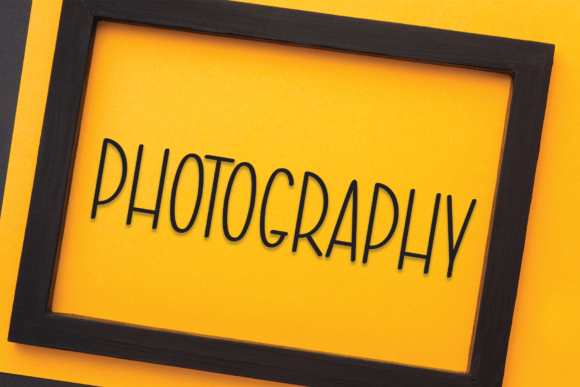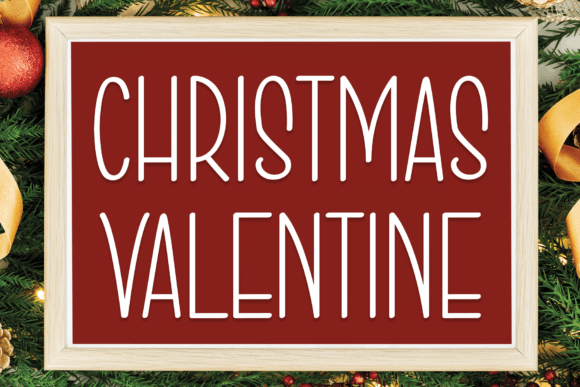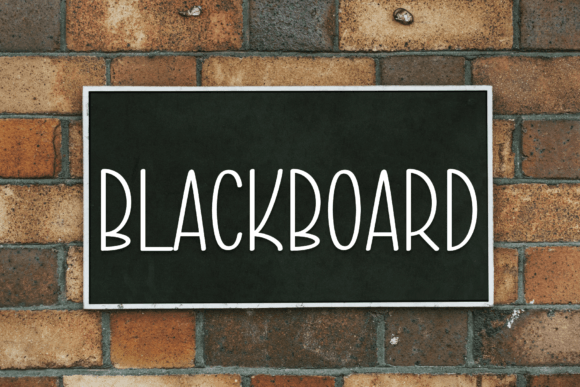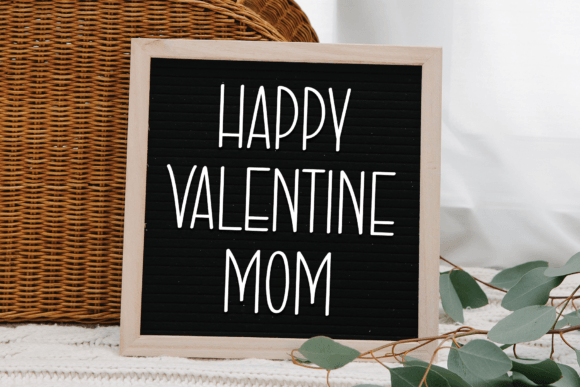
Introducing Game Snow Font: The Fun and Friendly Handwritten Font for All Occasions
Are you tired of using the same old fonts for your crafts, digital designs, presentations, and greeting cards? Look no further! Game Snow Font is here to bring a touch of fun and friendliness to your projects. This versatile handwritten font is perfect for designers, crafters, and anyone looking to add a personal touch to their creations.
The Perfect Font for Crafters and Designers
Game Snow Font is a unique and charming font that can be used for a wide range of projects. Whether you’re creating handmade cards, scrapbooking pages, or digital designs, this font is sure to become your go-to choice. Its playful and approachable feel makes it ideal for:
- Crafts: Add a personal touch to your handmade crafts, such as knitting patterns, sewing projects, or paper crafts.
- Digital design: Use Game Snow Font in your digital designs, such as social media graphics, blog posts, or website headers.
- Presentations: Make your presentations more engaging and fun with this friendly font.
- Greeting cards: Create personalized and heartfelt greeting cards for any occasion.
What Makes Game Snow Font So Special?
Game Snow Font has several features that make it stand out from other fonts:
- Handwritten feel: The font has a genuine handwritten feel that adds a touch of warmth and personality to your projects.
- Versatility: Game Snow Font can be used for a wide range of projects, from formal to informal, and from digital to print.
- Ease of use: The font is easy to read and works well in various sizes, making it perfect for both headlines and body text.
- Unique character set: The font includes a range of characters, numbers, and punctuation marks, ensuring that you have everything you need to create beautiful text.
Tips for Using Game Snow Font
To get the most out of Game Snow Font, here are some tips to keep in mind:
- Pair it with other fonts: Combine Game Snow Font with other fonts to create a unique and interesting contrast.
- Experiment with colors: Try out different colors and textures to add depth and visual interest to your projects.
- Use it for emphasis: Use Game Snow Font to draw attention to important information or to add emphasis to your text.
- Keep it simple: Don’t be afraid to use Game Snow Font on its own – its simplicity can be its greatest strength.
Game Snow Font is a fun and friendly handwritten font that’s perfect for designers, crafters, and anyone looking to add a personal touch to their projects. With its versatility, ease of use, and unique character set, it’s sure to become your favorite font for any occasion. So why not give it a try and see how Game Snow Font can bring a touch of magic to your creations?
Whether you’re a seasoned designer or a crafty hobbyist, Game Snow Font is a great addition to your font library. So go ahead, get creative, and have fun with Game Snow Font!